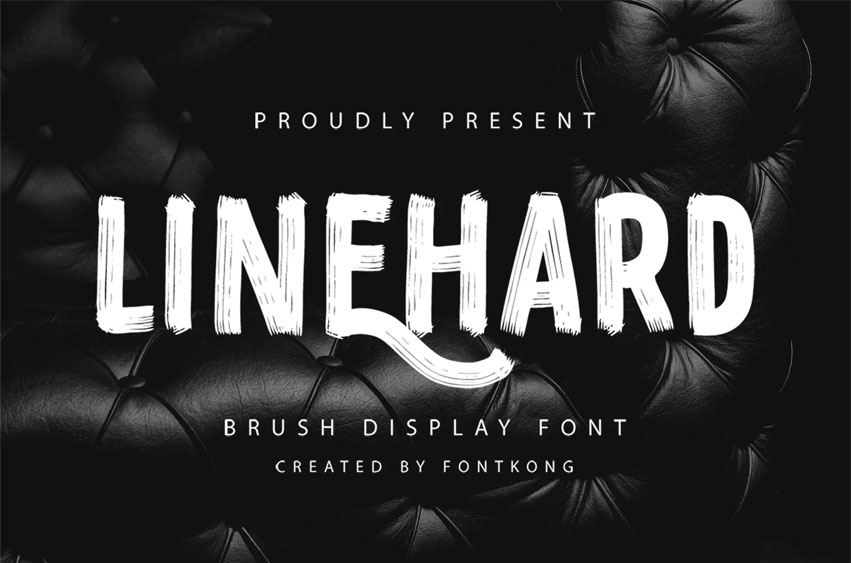
Linehard Font is a bold brush display font that packs a punch. With its raw strokes and energetic personality, this typeface brings a rebellious and powerful edge to any design. Perfect for music posters, streetwear branding, sports graphics, event titles, and anything that demands a rugged, hand-painted attitude.
Its expressive brush style is both wild and intentional—giving your typography a handcrafted, impactful presence. Whether you’re designing for digital or print, Linehard will leave a lasting impression.